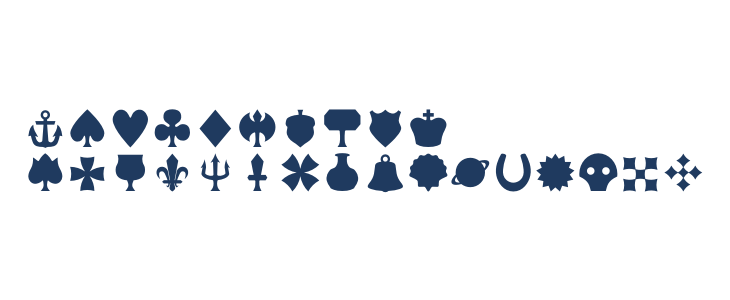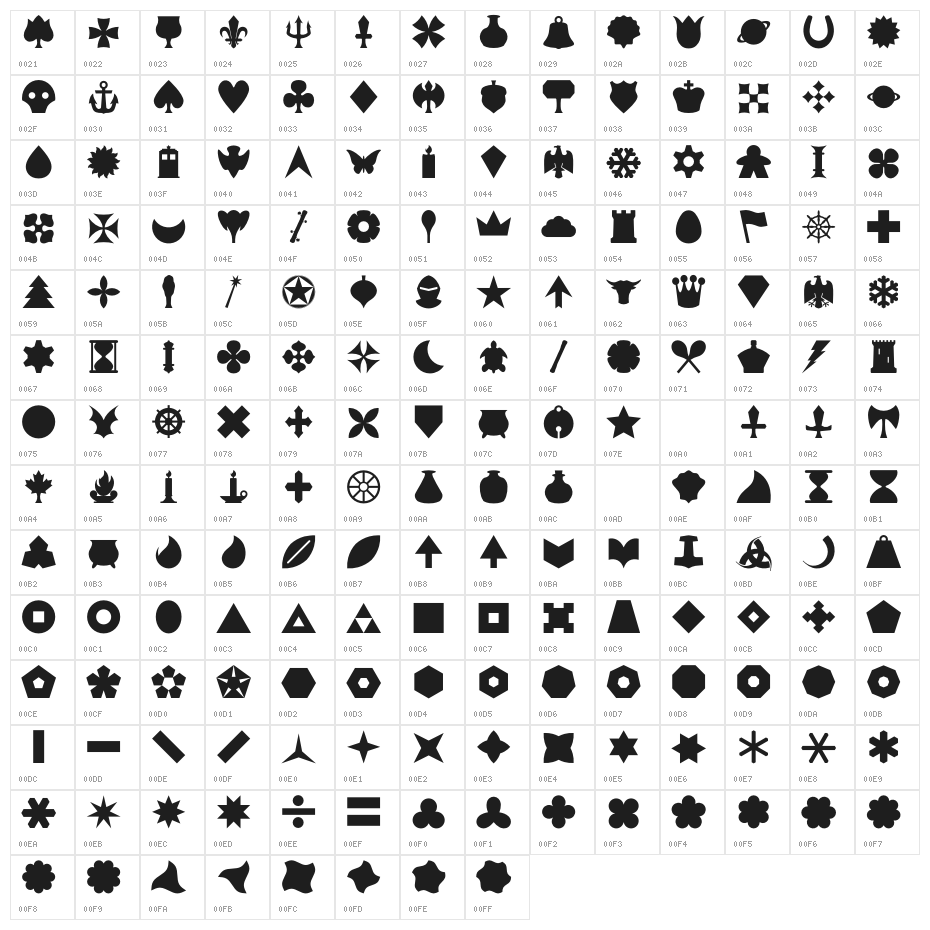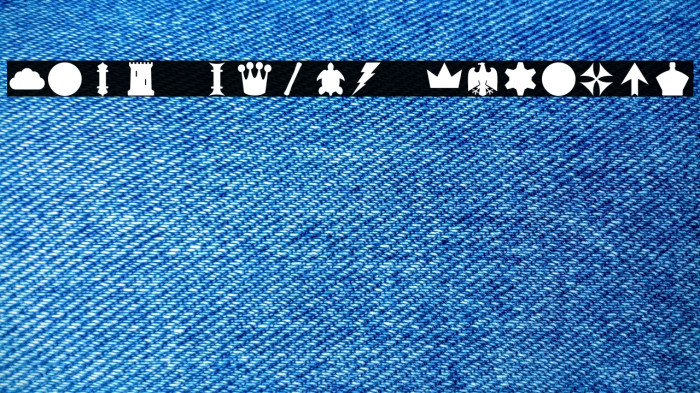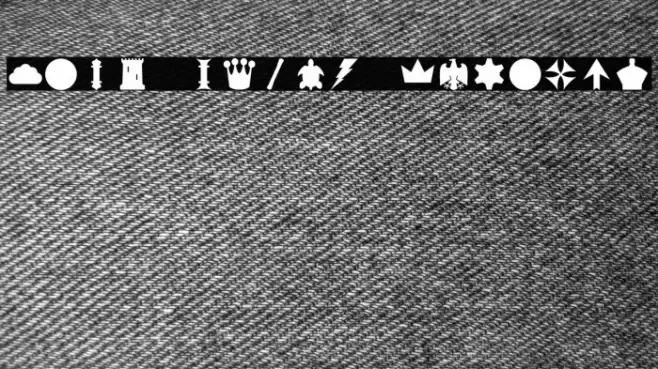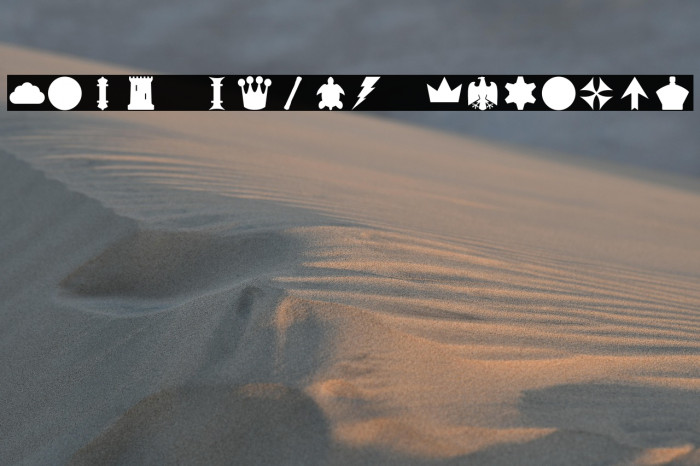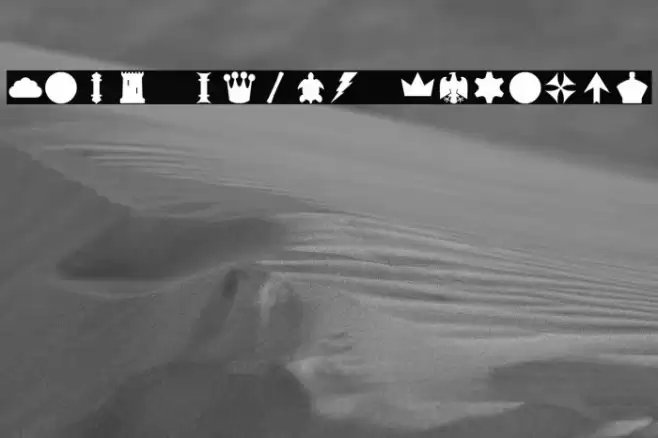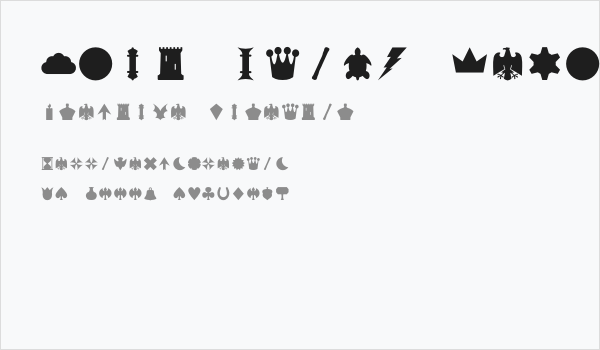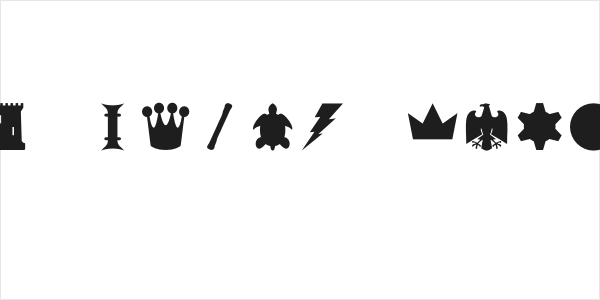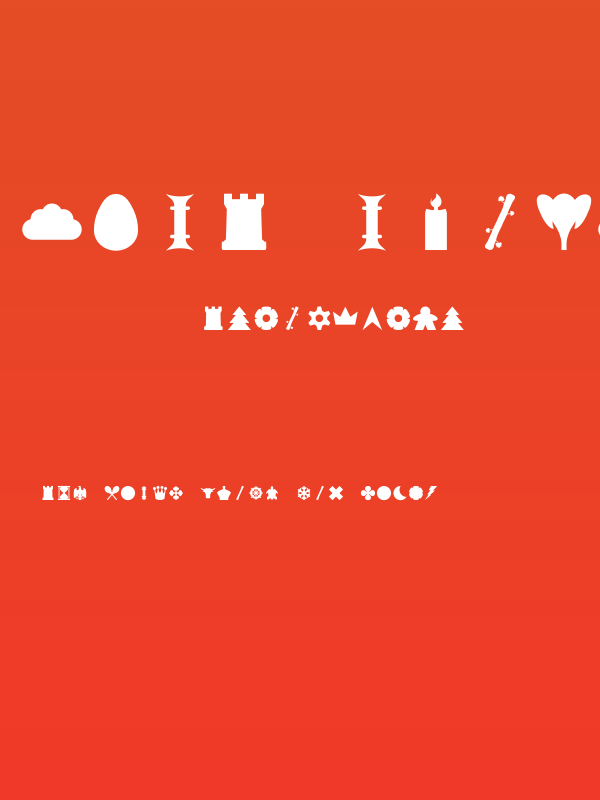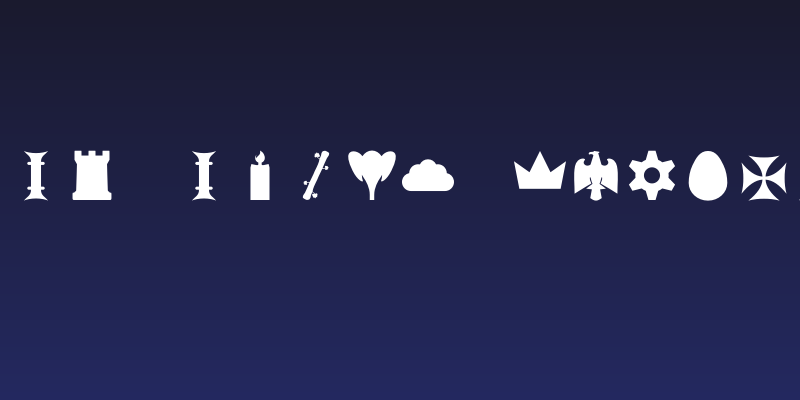
Suit Icons Regular Font
Suit Icons Regular Description
This collection of icons features a diverse array of symbols, each rendered in a bold, solid black silhouette. The icons include a variety of shapes such as arrows, crowns, trees, and geometric patterns, as well as thematic symbols like anchors, hearts, and skulls. Each icon is distinct and easily recognizable, making them suitable for a wide range of applications. The uniformity in style and weight across the set ensures a cohesive look when used together. The icons are designed to be versatile, fitting seamlessly into both modern and traditional design contexts.
| Use Case | Icons, Logos, Decorative elements |
| Proposed Projects | Ideal for use in game design, app interfaces, educational materials, and branding projects. |